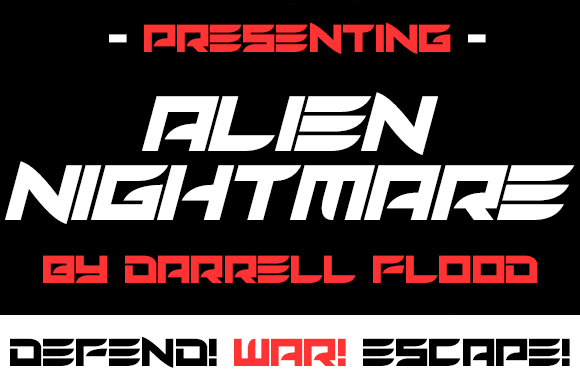
Introducing the Alien Nightmare Font: A Futuristic Typeface for the Modern Designer
In the realm of typography, fonts play a crucial role in conveying the tone and aesthetic of a design. For designers and crafters working on projects with a sci-fi theme, finding the right font can be a challenge. That’s where the Alien Nightmare Font comes in – a modern sci-fi font that combines sharp angles and smooth curves for a unique look that’s perfect for high-tech themes, alien encounters, and general science use.
What Makes the Alien Nightmare Font Stand Out?
The Alien Nightmare Font is a carefully crafted typeface that embodies the essence of science fiction. Its design is characterized by sharp, angular lines and smooth, flowing curves, creating a visually striking contrast that’s both futuristic and captivating. This font is ideal for designers looking to add a touch of otherworldliness to their projects, whether it’s for a logo, title sequence, or packaging design.
Key Features of the Alien Nightmare Font
- Unique Blend of Sharp Angles and Smooth Curves: The Alien Nightmare Font boasts a distinctive design that sets it apart from more traditional typefaces. Its sharp angles give it a futuristic, high-tech feel, while the smooth curves add a touch of elegance and sophistication.
- Perfect for Sci-Fi Themes: Whether you’re working on a project that involves alien encounters, space exploration, or futuristic technology, the Alien Nightmare Font is the perfect choice. Its sci-fi aesthetic is sure to transport your audience to another world.
- Versatile and Highly Readable: Despite its futuristic design, the Alien Nightmare Font is highly readable, making it suitable for a wide range of applications, from large titles to smaller body text.
Use Cases for the Alien Nightmare Font
The Alien Nightmare Font is incredibly versatile and can be used in a variety of design projects, including:
- Movie and TV Show Titles: Add a touch of sci-fi flair to your title sequences with the Alien Nightmare Font.
- Logo Design: Create a memorable and futuristic logo for your tech startup or sci-fi themed business.
- Packaging Design: Stand out on store shelves with eye-catching packaging that features the Alien Nightmare Font.
- Web Design: Create a futuristic and engaging website with the Alien Nightmare Font as your typeface of choice.
Tips for Using the Alien Nightmare Font
To get the most out of the Alien Nightmare Font, consider the following tips:
- Experiment with Different Sizes: The Alien Nightmare Font looks great in both large and small sizes, so don’t be afraid to experiment with different sizes to find the perfect fit for your project.
- Pair with Complementary Fonts: Combine the Alien Nightmare Font with complementary fonts to create visual interest and add depth to your design.
- Play with Colors: The Alien Nightmare Font looks great in a variety of colors, so don’t be afraid to get creative and try out different color schemes.
The Alien Nightmare Font is a unique and versatile typeface that’s perfect for designers and crafters working on sci-fi themed projects. Its blend of sharp angles and smooth curves creates a visually striking aesthetic that’s sure to transport your audience to another world. With its high readability, ease of use, and wide range of applications, the Alien Nightmare Font is a must-have for any designer looking to add a touch of futurism to their designs.